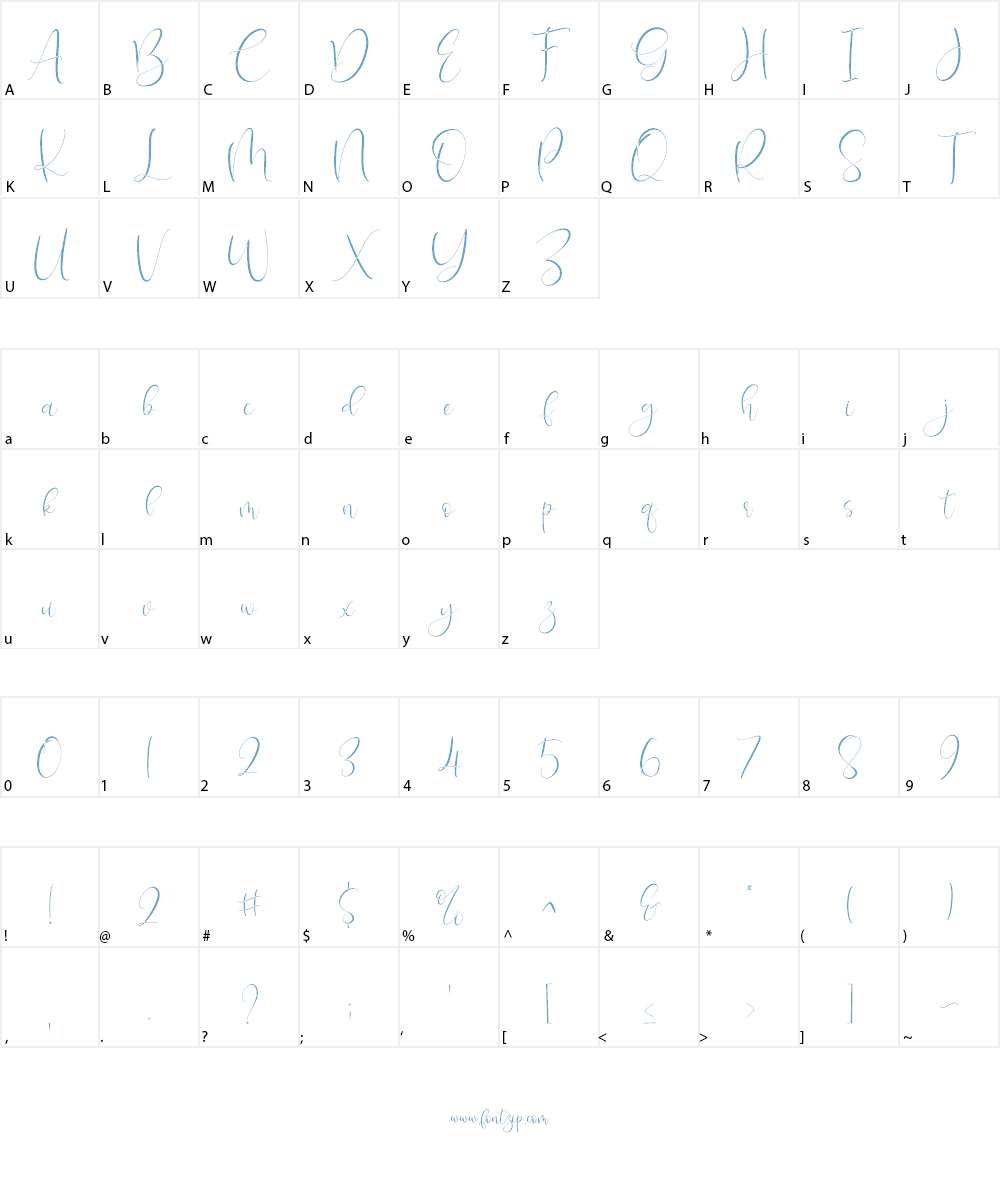
Introduce Isyana fonts, casual beauty script style letters with beautiful and flexible strokes that make a natural girly impression.
This letter you can use for poster design projects, wedding invitations, congratulations, flyers, beautiful logos and more.
Isyana Script - a number of standard glyphs and alternatives
Access All Alternate - many choices of font styles so you can do more exploration in designing.
Multilingual - multilingual standard for those of you who need special characters.